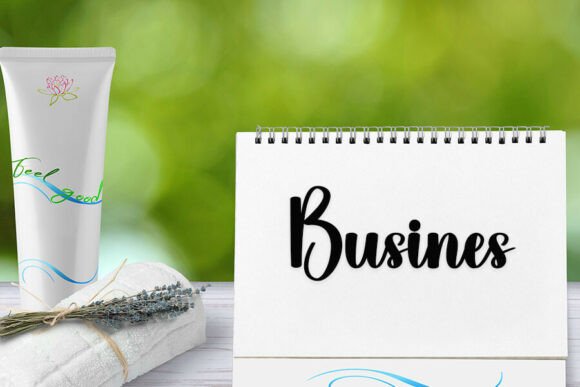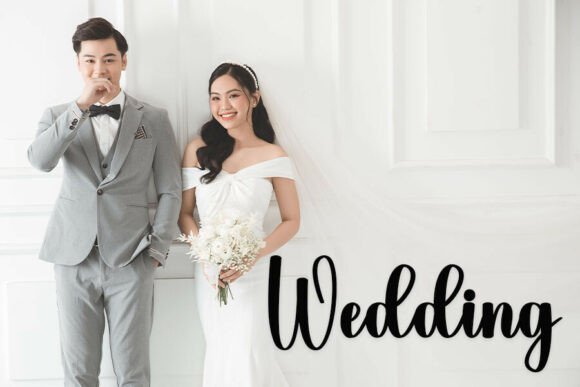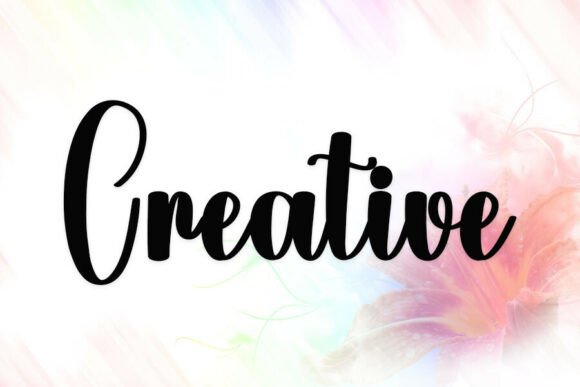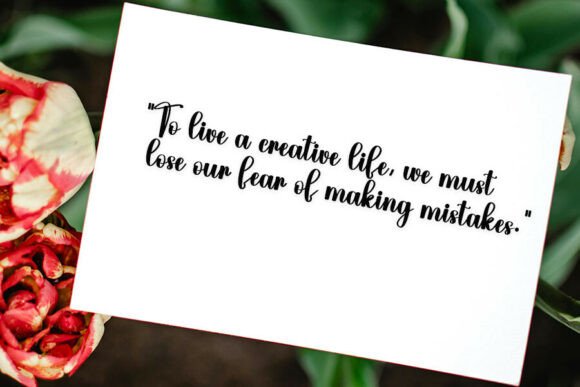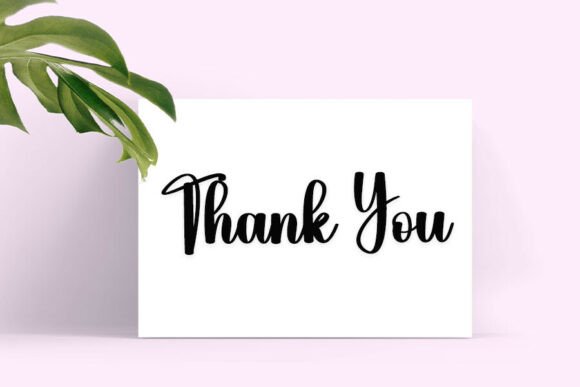
Adding a Touch of Magic to Your Designs
Have you ever stared at a beautifully designed logo or wedding invitation and thought, ‘I wish I could create something like that’? That’s exactly how I felt when I stumbled upon the Disney Font. Its whimsical and elegant script style instantly captured my heart and made me want to bring it to life in my designs.
The Disney Font is a sweet and cursive handwritten font that adds a touch of joy and romance to any project. Its versatility makes it perfect for branding, logo design, wedding invitations, and more. Whether you’re a seasoned designer or just starting out, this font is sure to become a valuable addition to your design toolkit.
With the Disney Font, you can create designs that exude a sense of whimsy and sophistication, making it a must-have for any designer looking to add a touch of magic to their work.
Key Features of the Disney Font
- Unique Characteristics: The Disney Font features a distinctive, cursive script style with elegant flourishes and ornaments, reminiscent of classic Disney animation.
Disney Font Review
As a designer, I was excited to dive into the Disney Font and see if it lived up to its iconic brand reputation. ✨ The first thing that struck me was the nostalgic feel of the font. It’s unmistakably Disney and instantly transports you to a world of magic and wonder.
From a design perspective, the font works well in various contexts, particularly for branding and signage. The bold, playful strokes are perfect for grabbing attention and creating a sense of excitement. ✨ The font also pairs well with other classic Disney typography, making it a great choice for projects that require a cohesive look and feel.
While the Disney Font is a great choice for many projects, it’s not without its limitations. ⚠️ The font can feel a bit too playful or childish for certain applications, such as formal documents or professional communications. Additionally, the font’s lack of versatility can make it difficult to use in complex layouts or designs that require multiple font styles.
Overall, I think the Disney Font is a great choice for projects that require a touch of whimsy and nostalgia. While it may not be suitable for every design project, it’s a great option for branding, signage, and other applications where a playful, iconic look is desired.
Design Considerations
- Use the font for branding, signage, and other applications where a playful, iconic look is desired.
- Avoid using the font for formal documents or professional communications where a more serious tone is required.
- Consider using the font in combination with other classic Disney typography for a cohesive look and feel.
The Disney Font is commonly used in:
- Disney-themed party invitations and decorations.
- Disney-inspired artwork and graphic design.
- Disney-themed merchandise, such as t-shirts and mugs.
Remember to use the font in a way that is respectful and consistent with the Disney brand.
Alternatives to Disney Font for Designers
Comic Sans MS is a playful and informal sans-serif font that is often used for casual and creative projects. It is ideal for use in children’s books, cartoons, and other applications where a lighthearted and approachable tone is desired. Compared to Disney Font, Comic Sans MS has a more relaxed and casual feel, but can come across as less sophisticated in certain contexts.